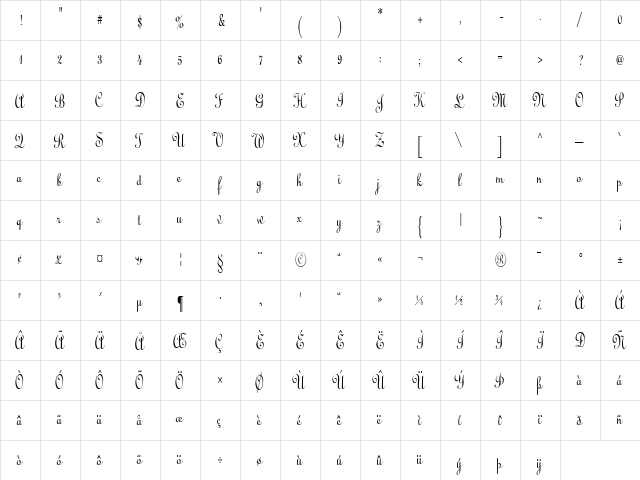
CathedralCondensed Regular
Design Context for CathedralCondensed Typeface
CathedralCondensed is a composed and adaptable typeface that performs quietly and consistently across a wide range of design contexts. The condensed width makes it efficient for tight spaces without sacrificing legibility.